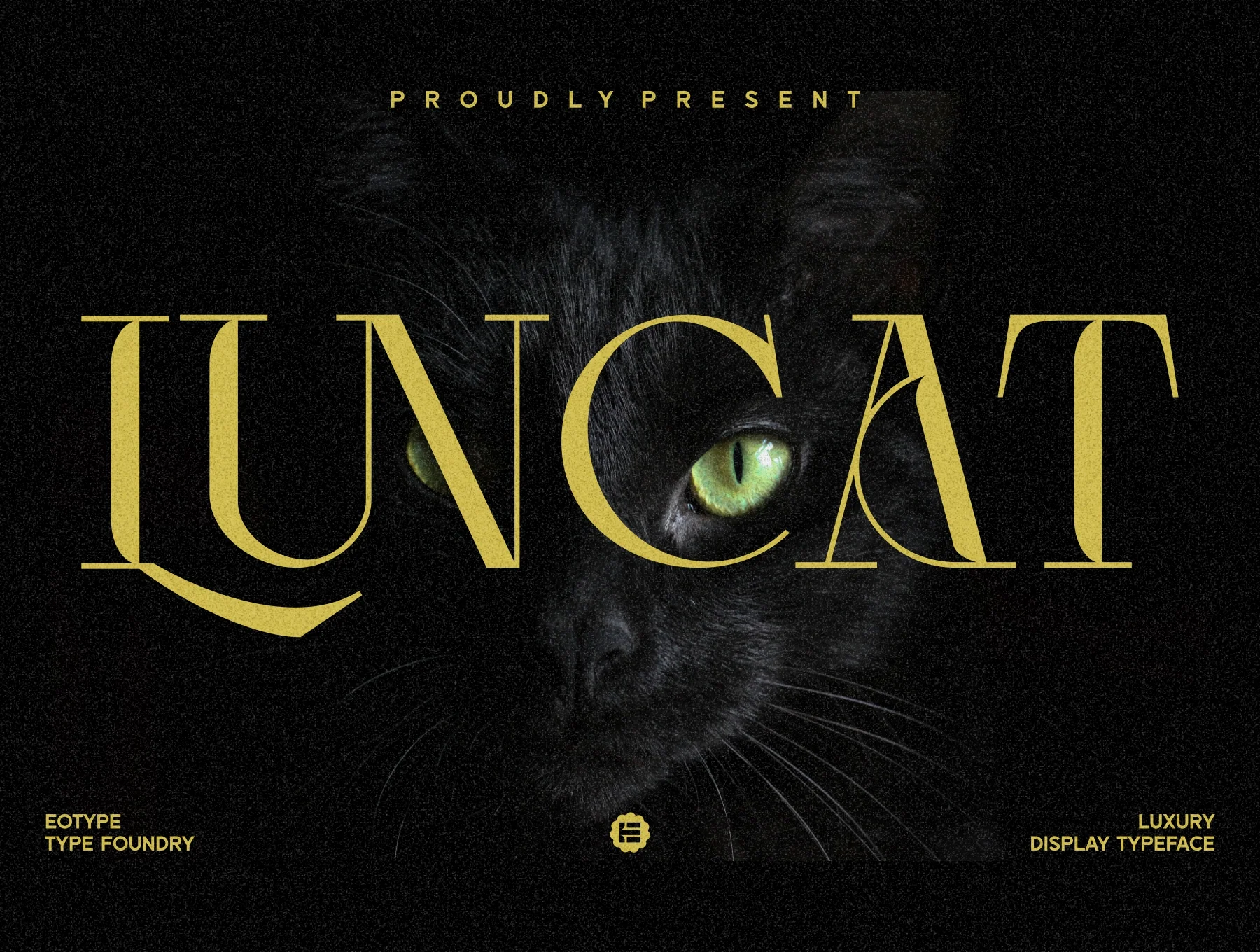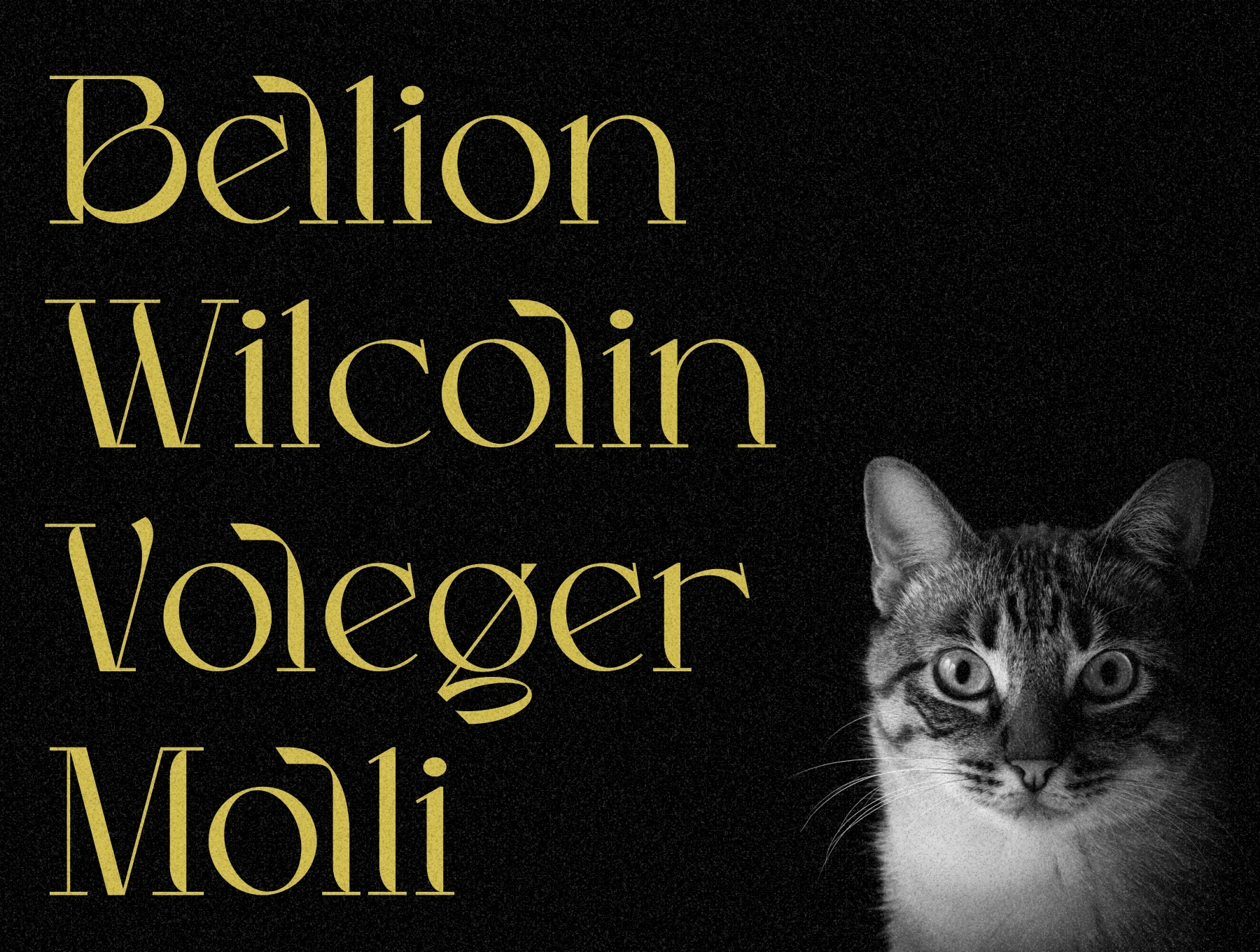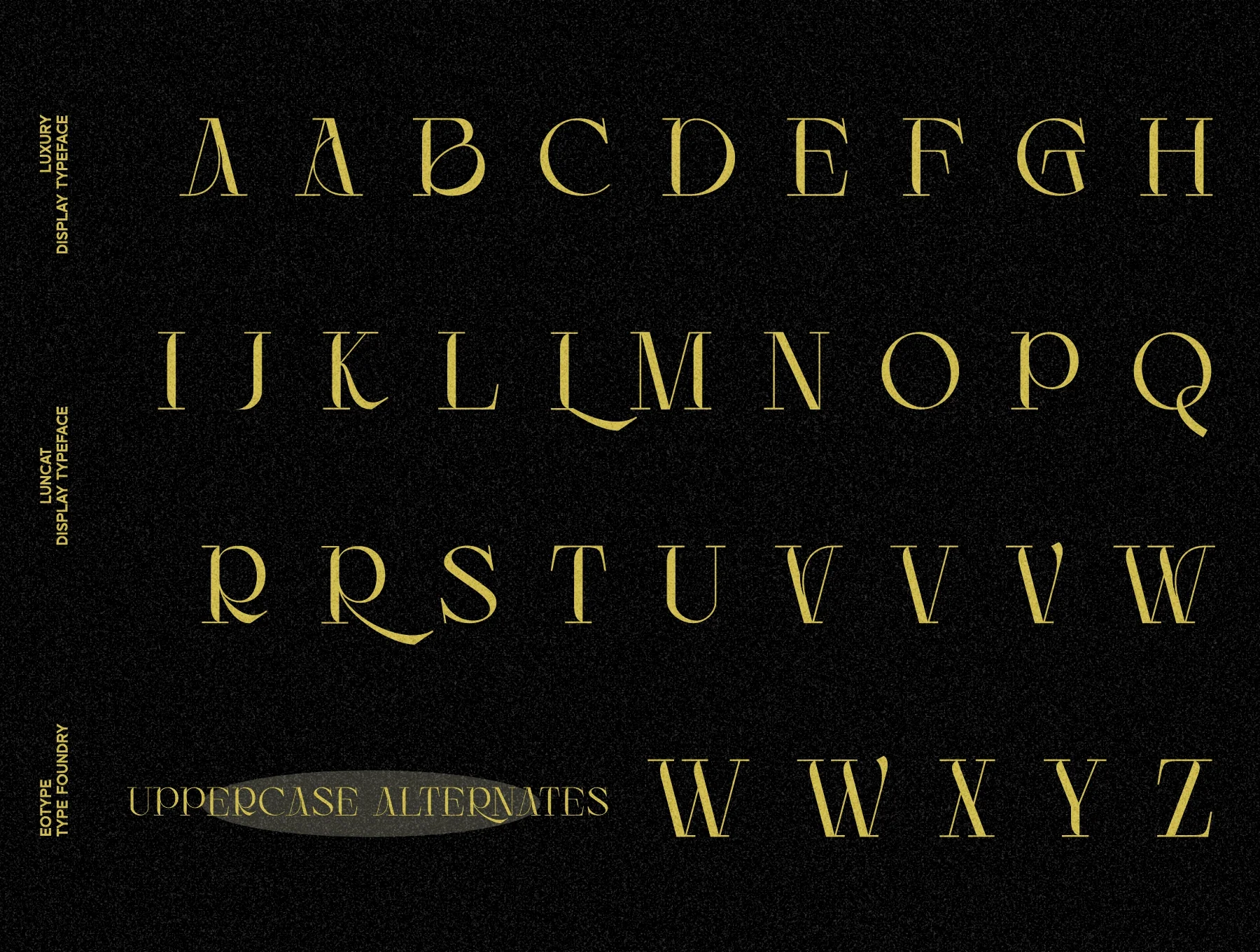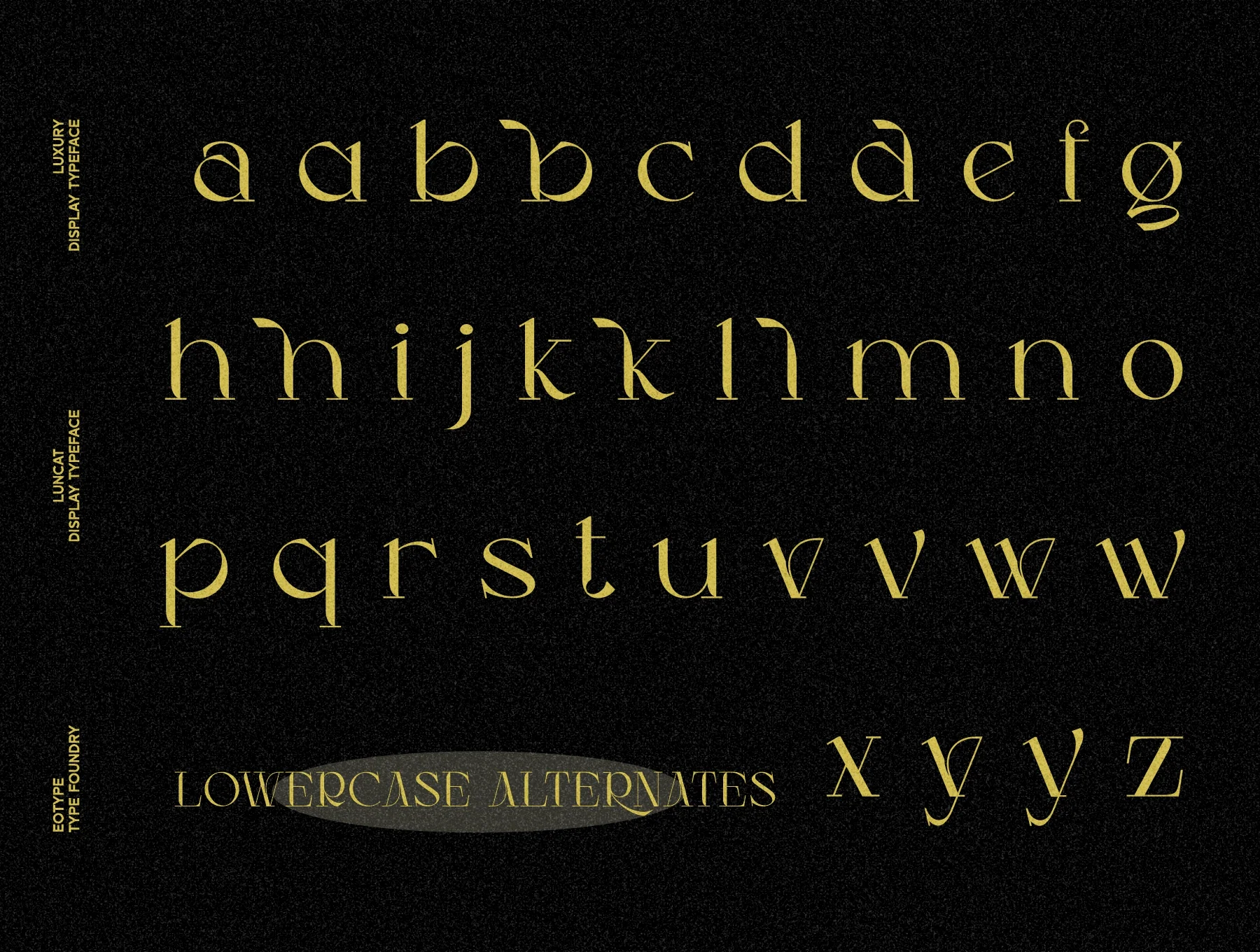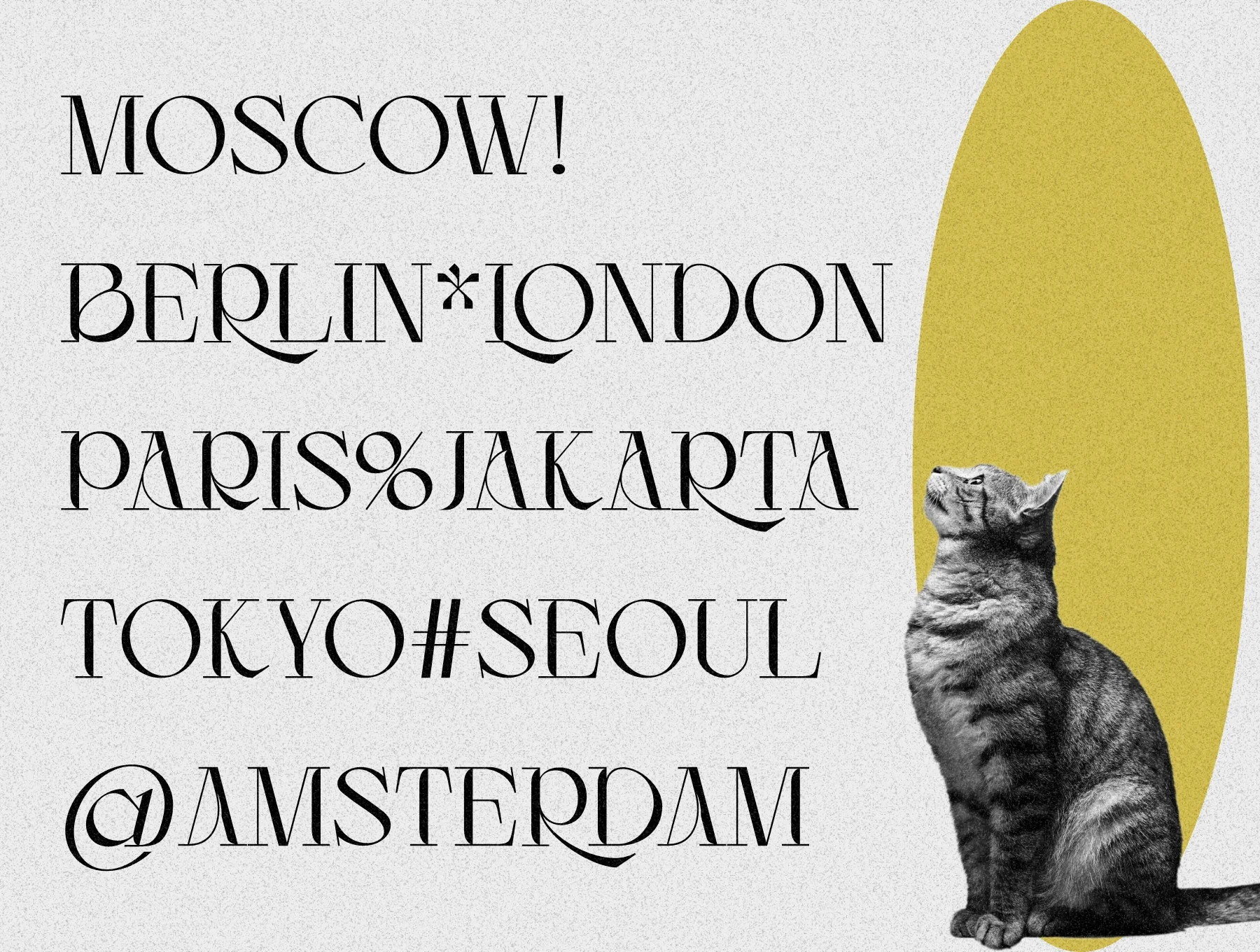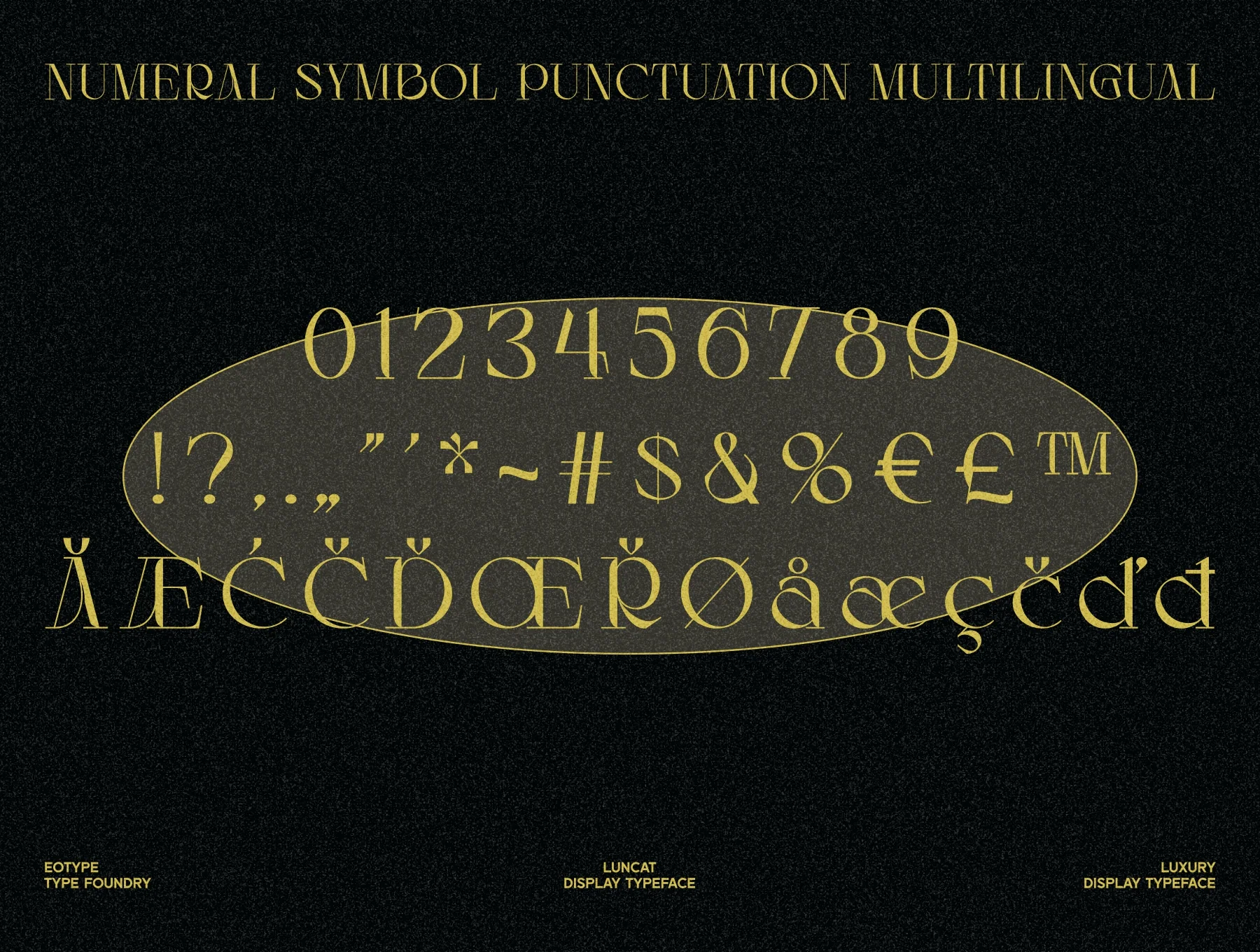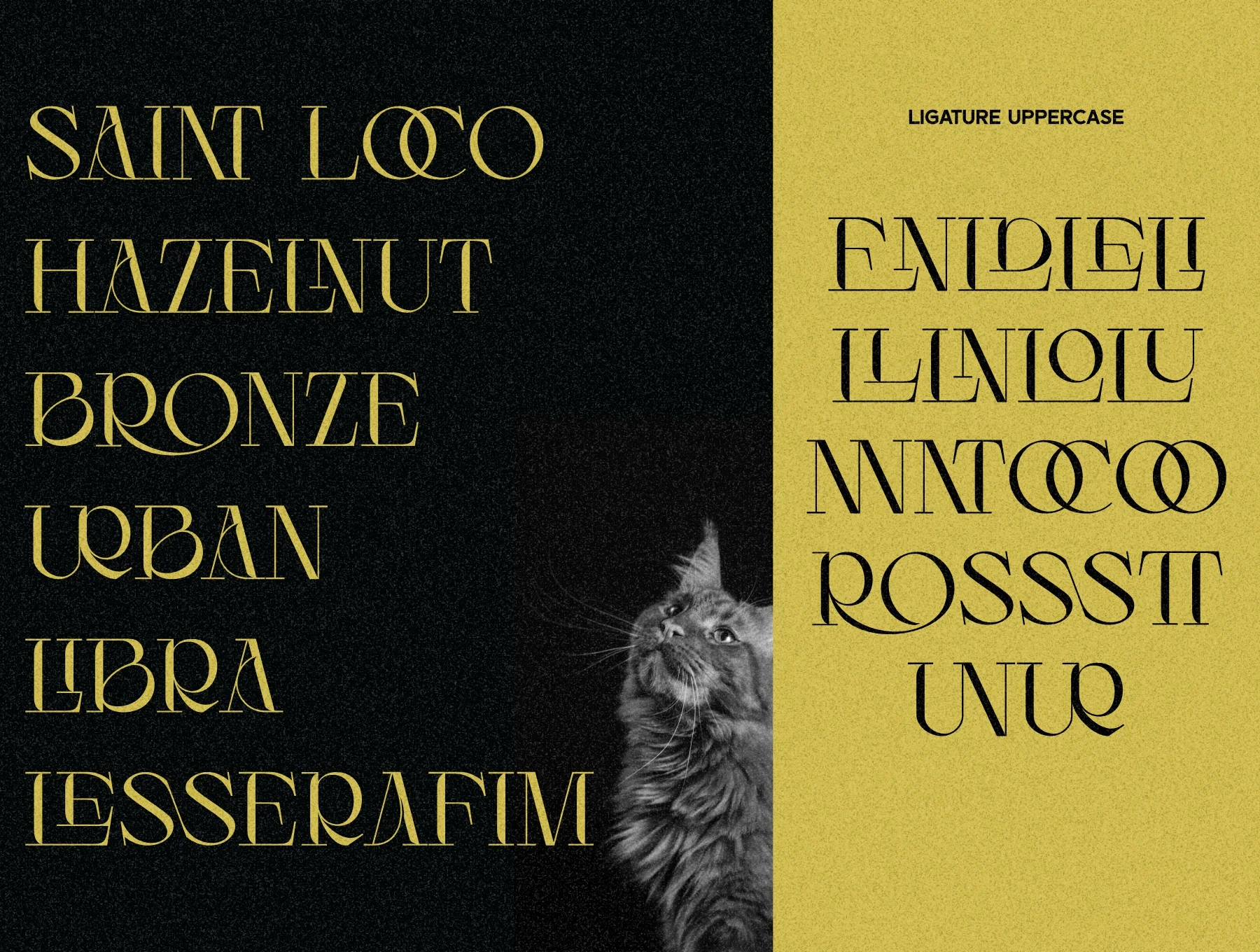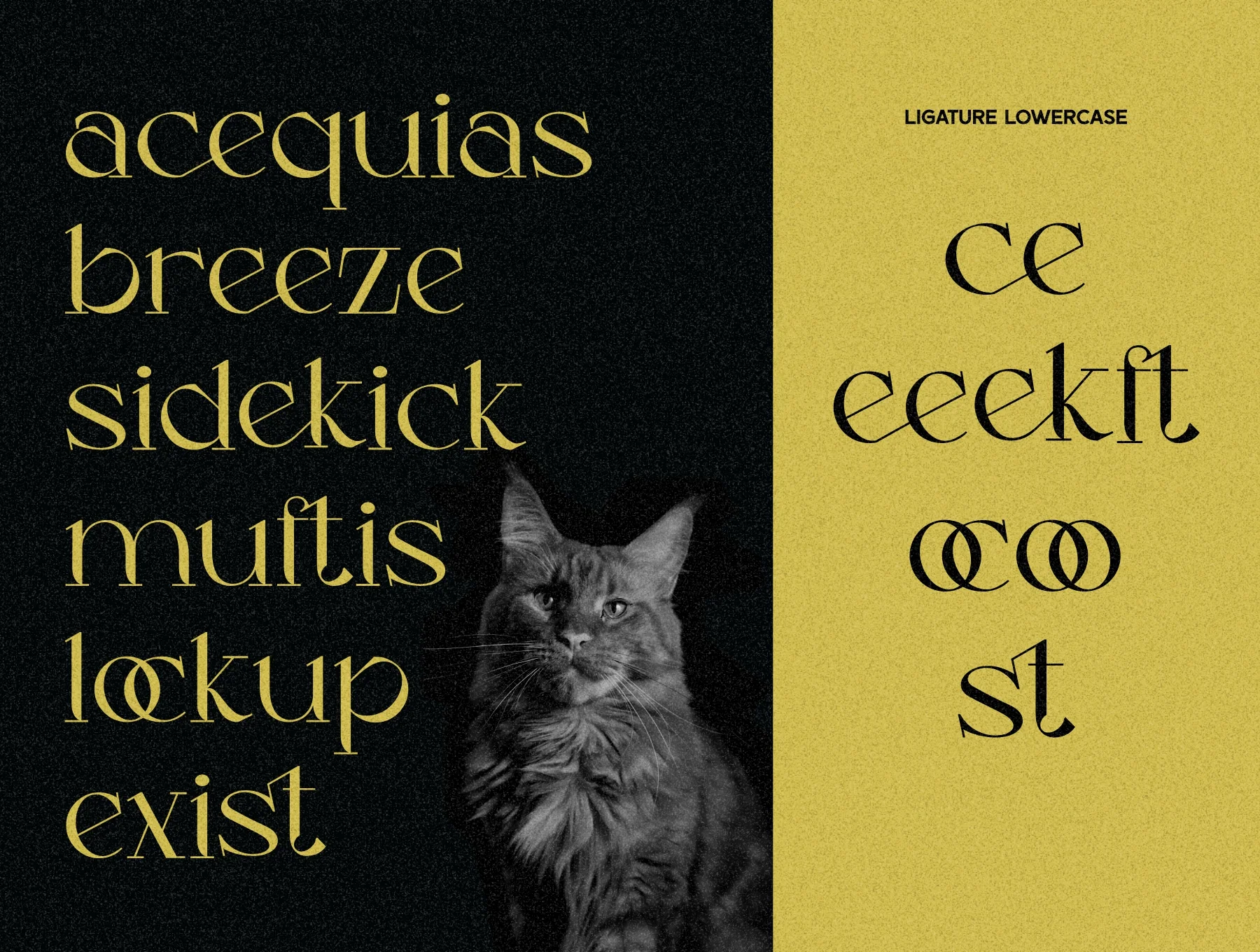
Luncat - Display Typeface
Luncat elegant contemporary serif typeface
Basic glyph
Numbers & marks
Normal weight
Alternate styles & ligatures
Luncat is an elegant contemporary serif typeface with striking contrast between delicate and bold strokes. Ideal for modern retro visuals, it works well for branding, magazines, logos, and other creative projects. Alternate styles and ligatures add a distinctive, refined touch.